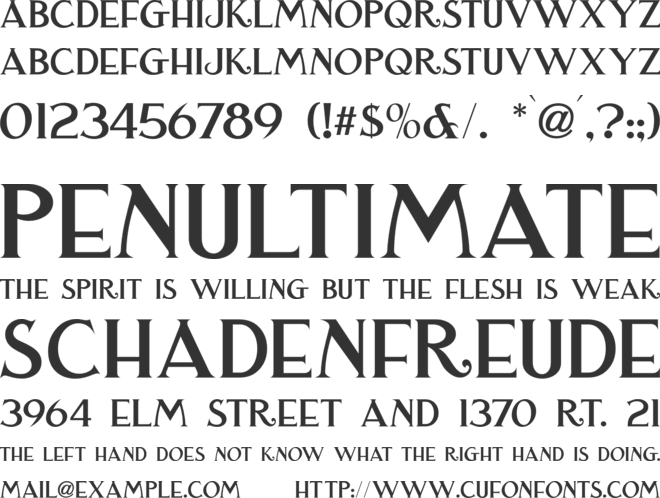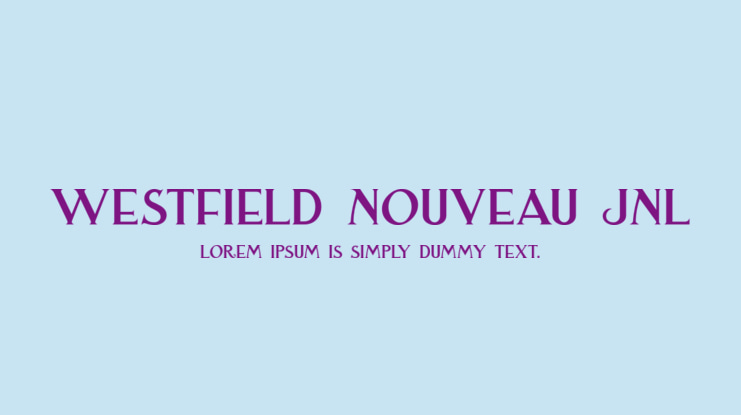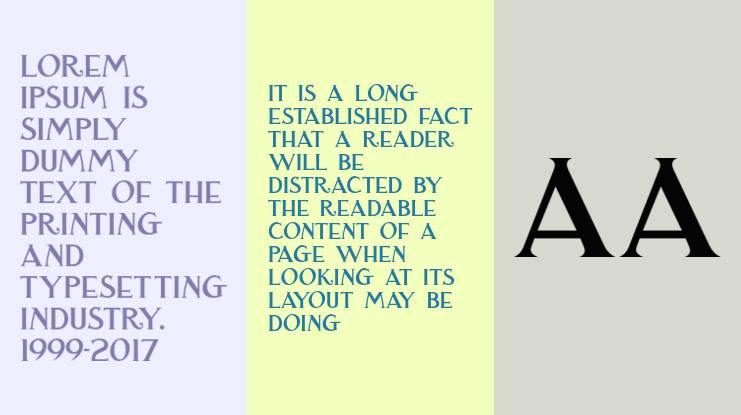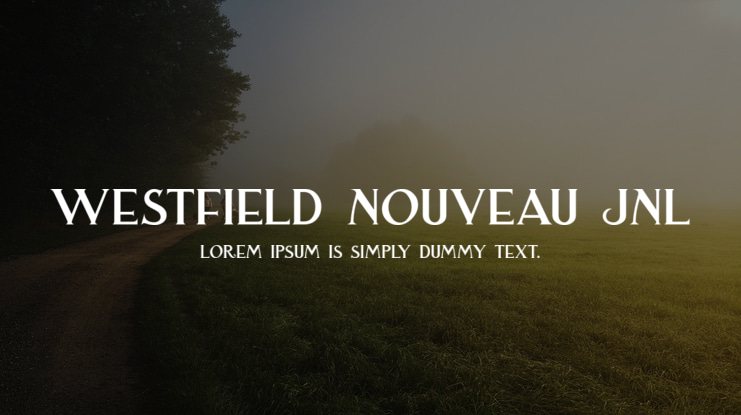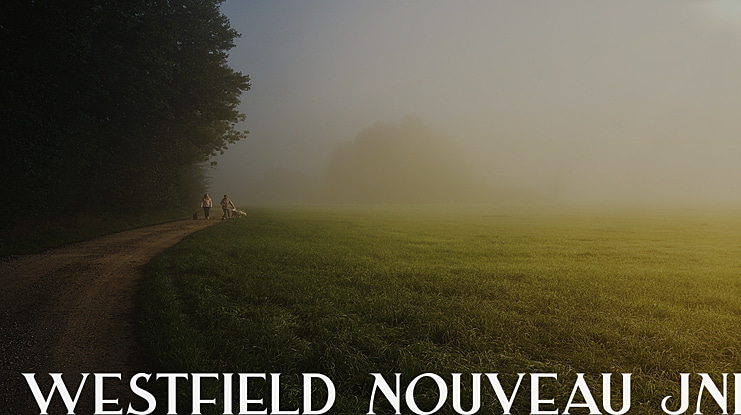
Westfield Nouveau JNL Font Family
Jeffrey N. Levine
The hand lettered song title on the sheet music for 1918’s ‘N’ Everything (from the Al Jolson show “Sinbad”) was the inspiration and model for Westfield Nouveau JNL, which is available in both regular and oblique versions.